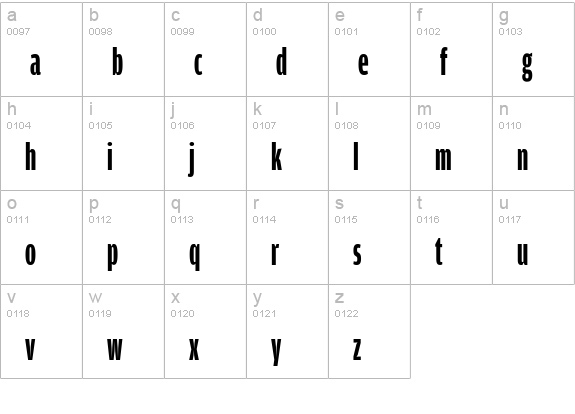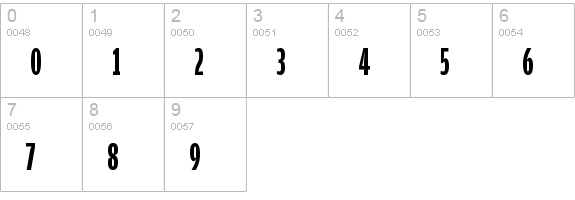
AmplitudeExtraComp-Bold Font Details
AmplitudeExtraComp-Bold is a strong, high-contrast variant in the AmplitudeExtraComp typeface family \xE2\x80\x94 well suited to headlines, attention-grabbing titles, and strong calls-to-action.
AmplitudeExtraComp-Bold is a bold and eye-catching font that commands attention with its strong and impactful presence. With its extra compact design, this font is perfect for headlines, posters, and any other design projects that require a bold statement. The thick strokes and sharp edges give a modern and edgy look to any text. This versatile font is designed to make your text stand out and leave a lasting impression on your audience. Whether you're creating a bold title or a striking logo, AmplitudeExtraComp-Bold will ensure that your message is seen and heard. And the best part? This font is available for free download at FontsMarket.com, making it easily accessible for all your design needs. With AmplitudeExtraComp-Bold, you can elevate your designs and make a bold statement without breaking the bank. Download it today and take your designs to the next level!